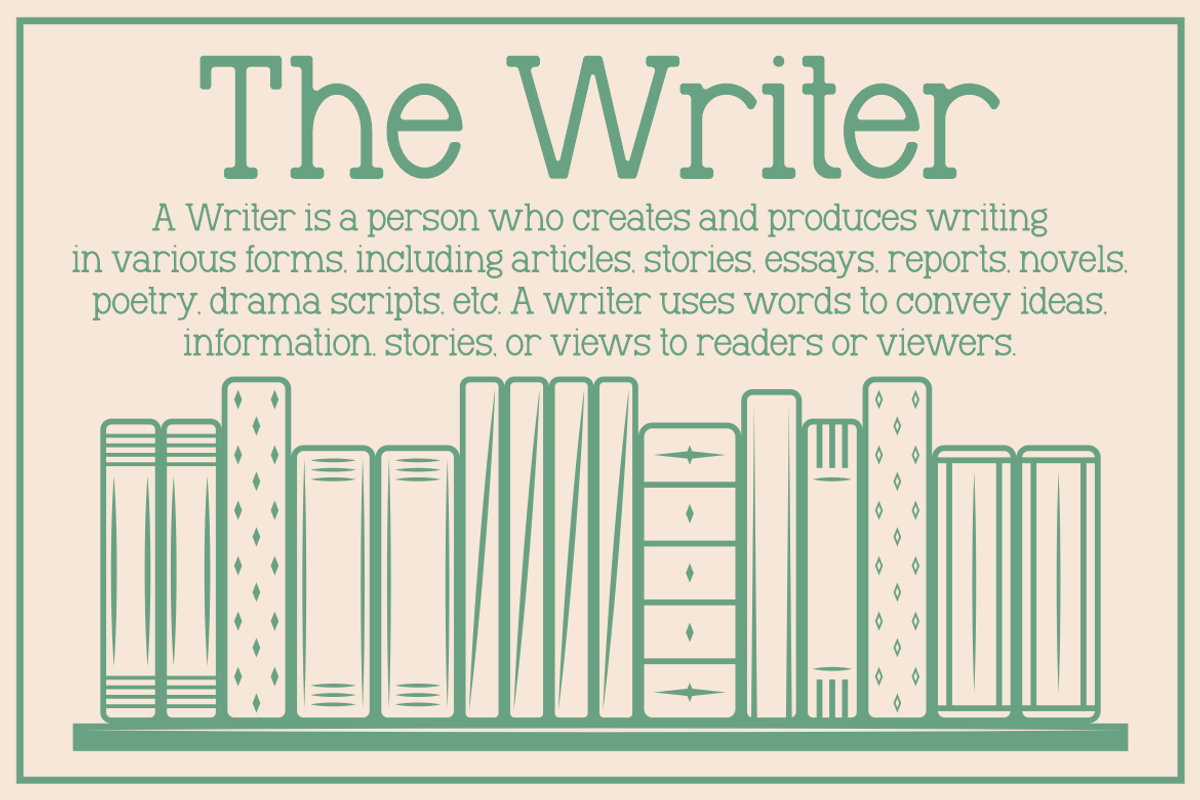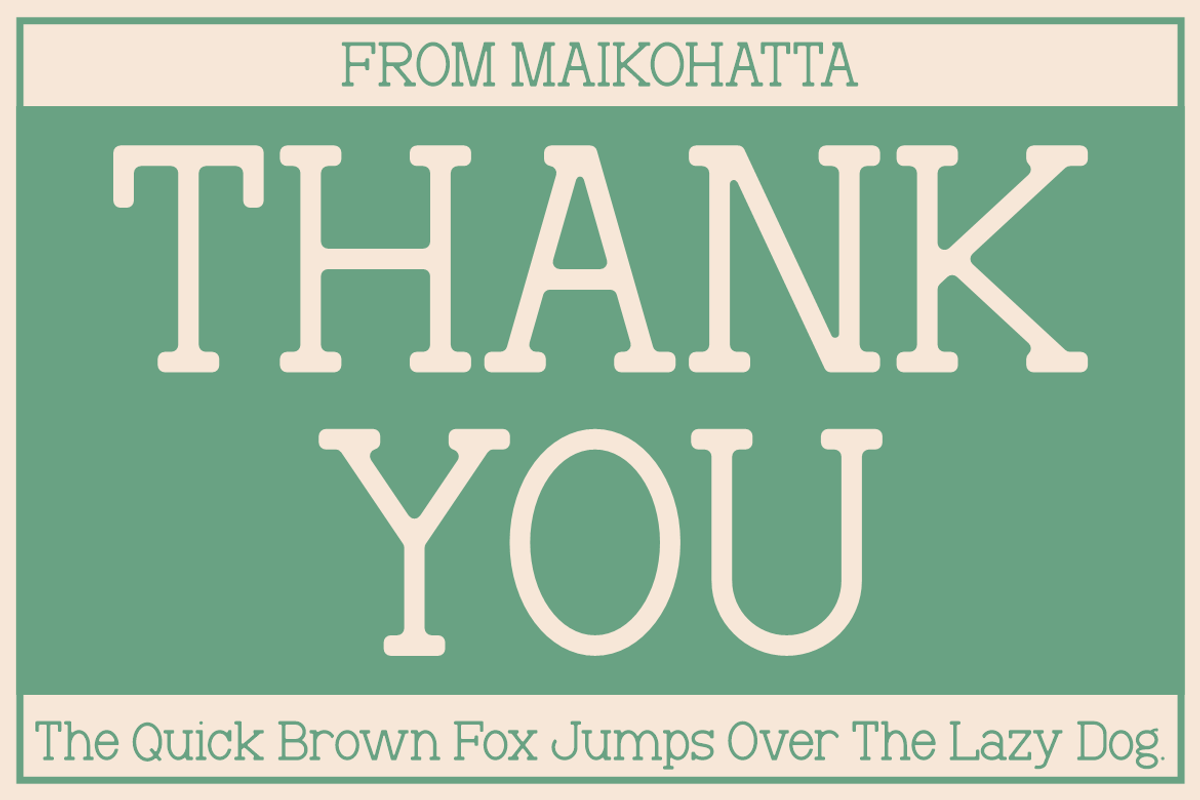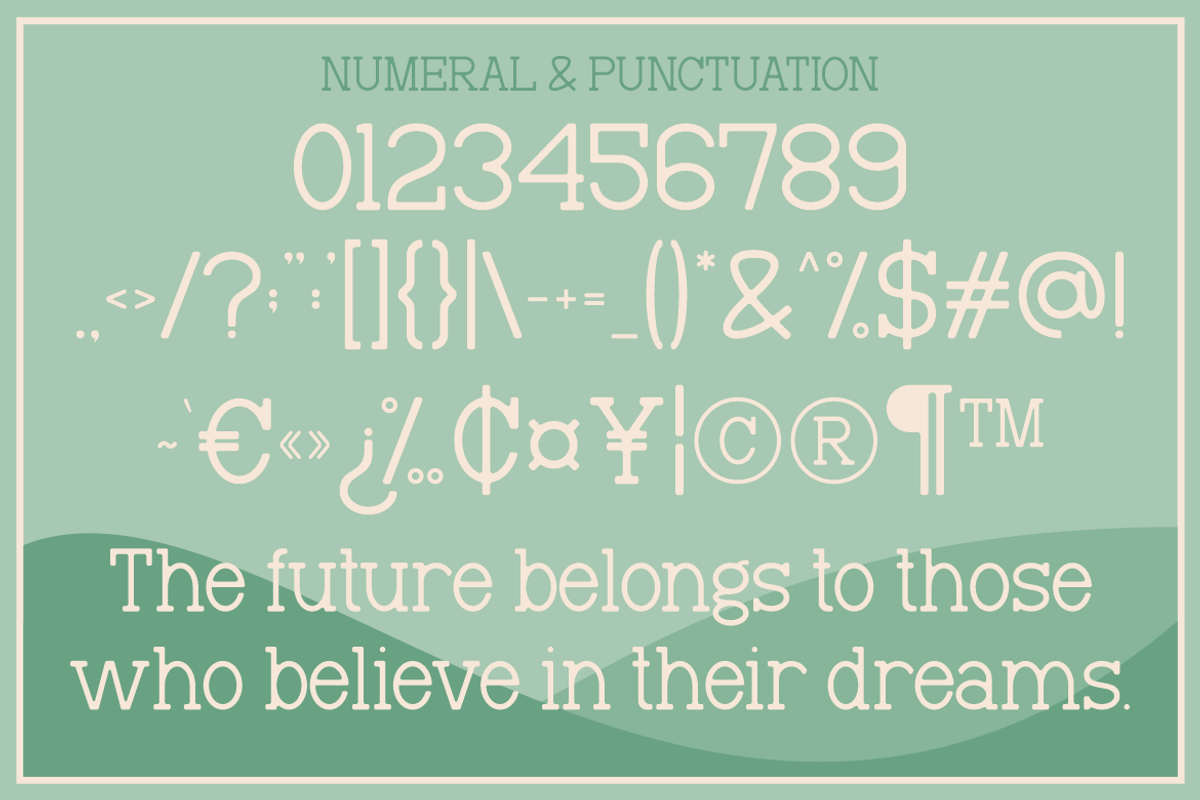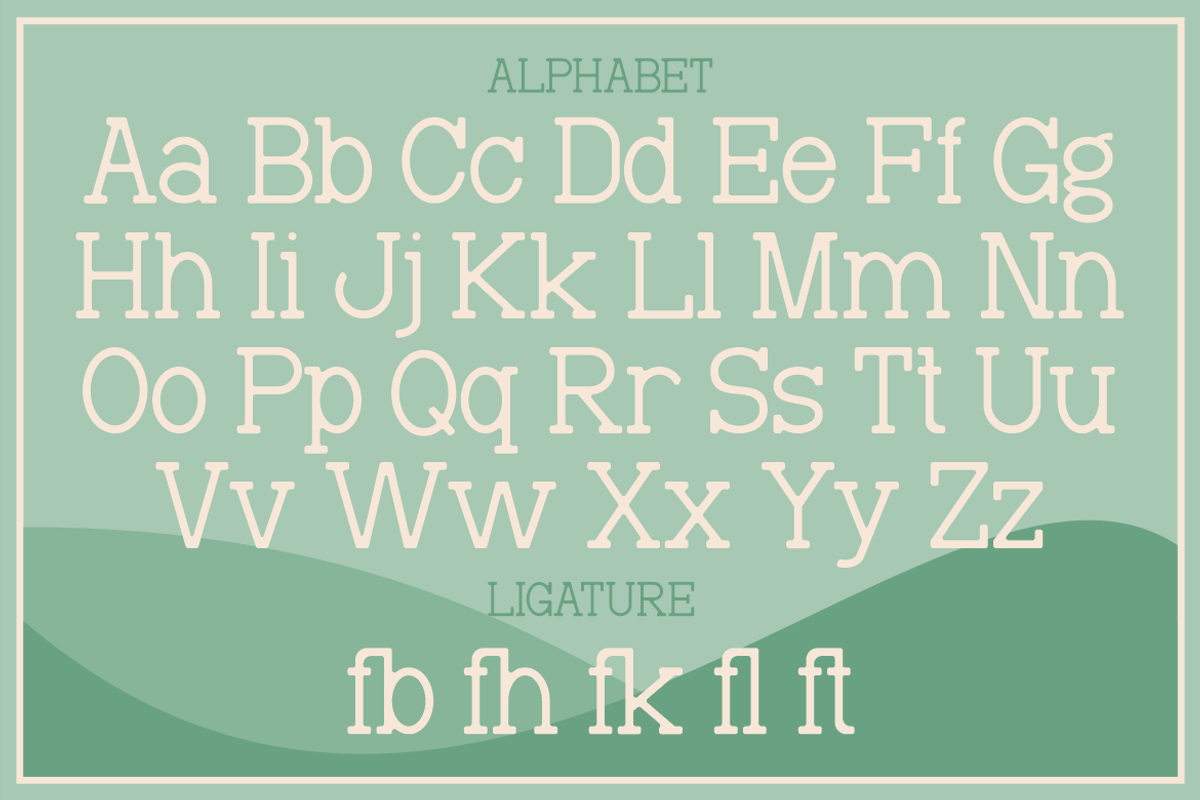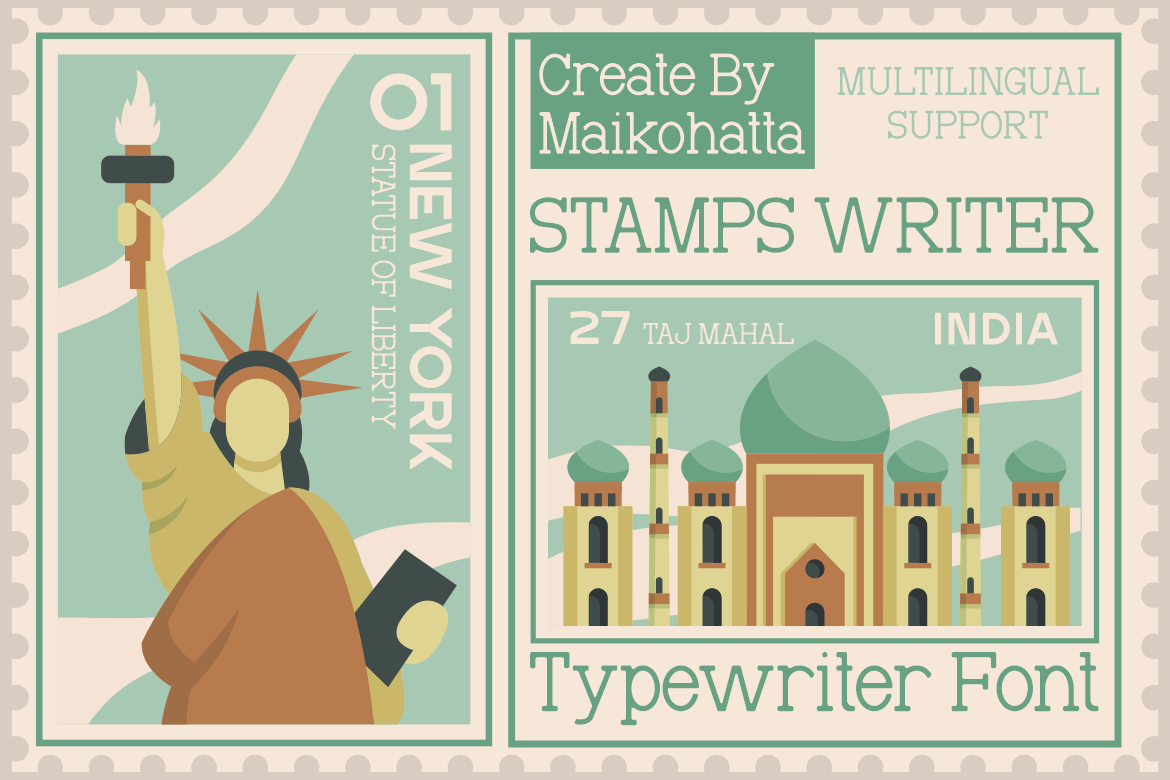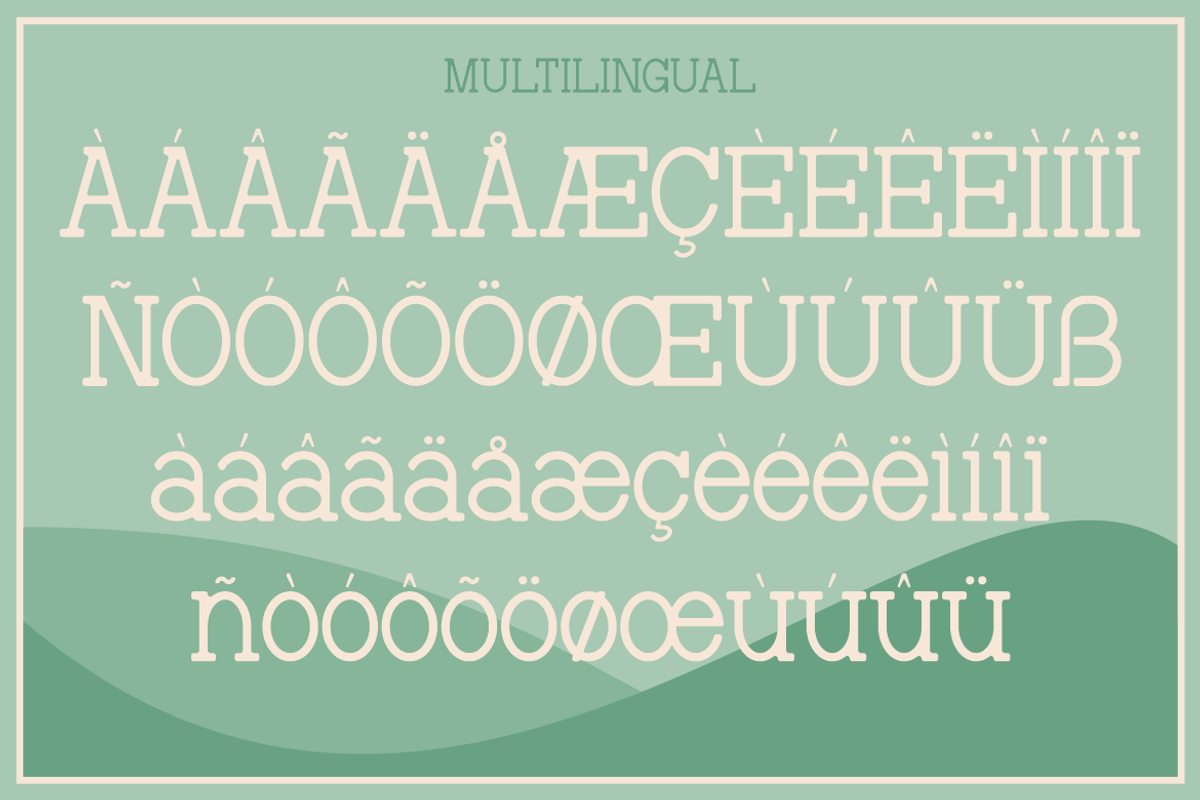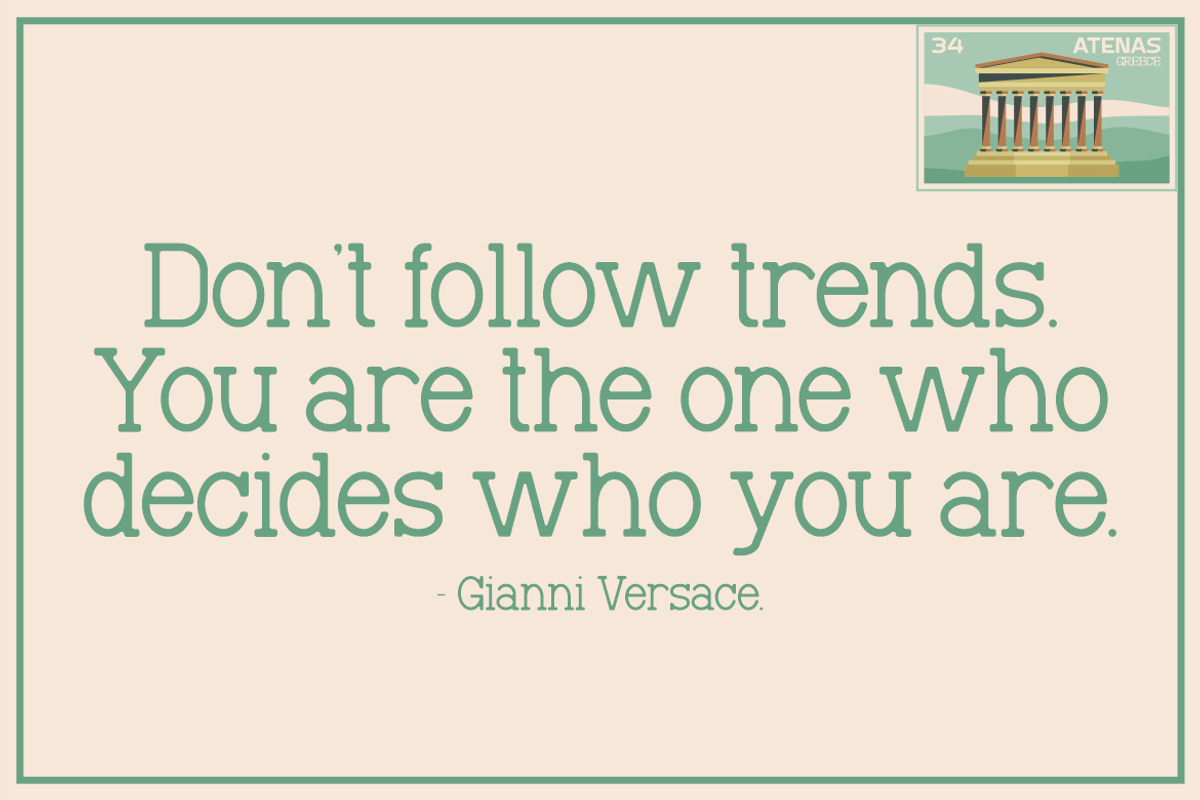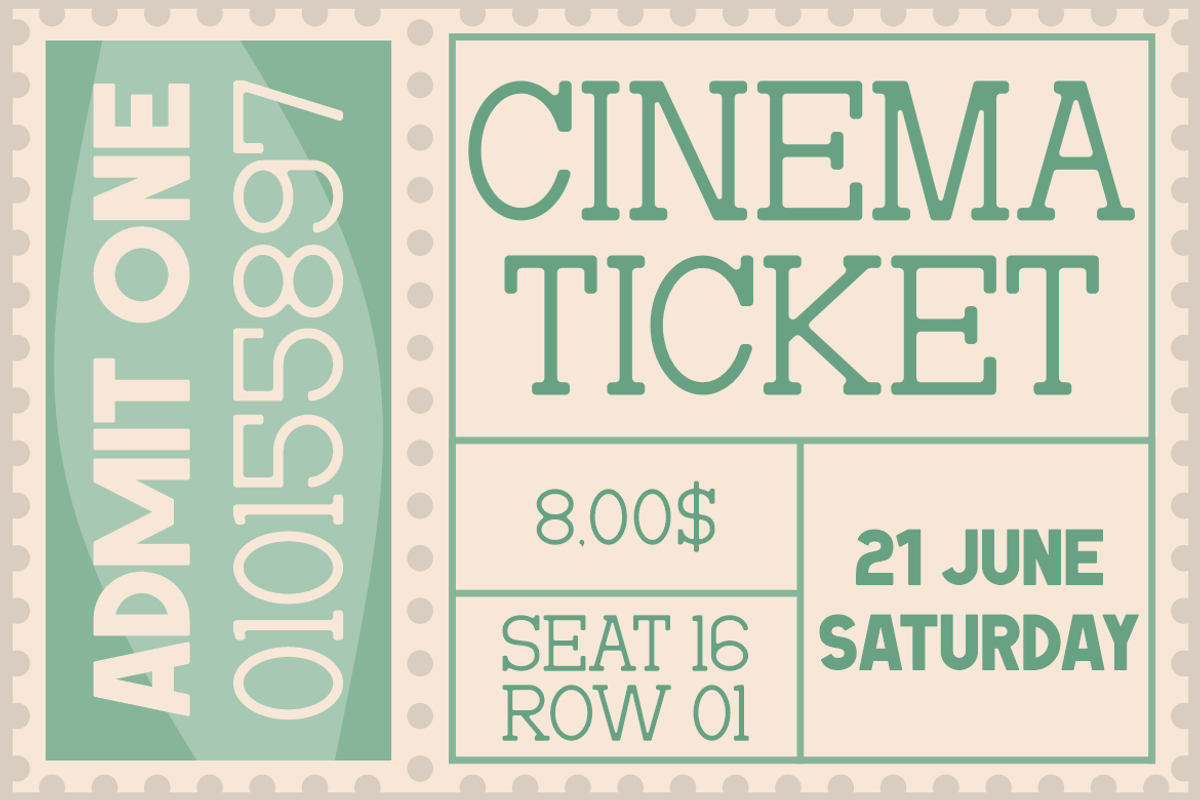
Stamps Writer - Typewriter Font
Introducing our new product Stamps Writer - Typewriter Font
This font combines traditional serif elements with the aesthetics of a typewriter, creating a captivating font that imparts a classic feel to any design it's used in. It produces a unique appearance and is often employed to achieve a retro or vintage impression.